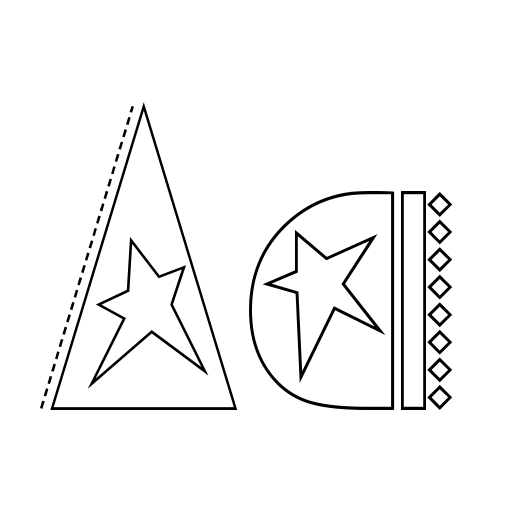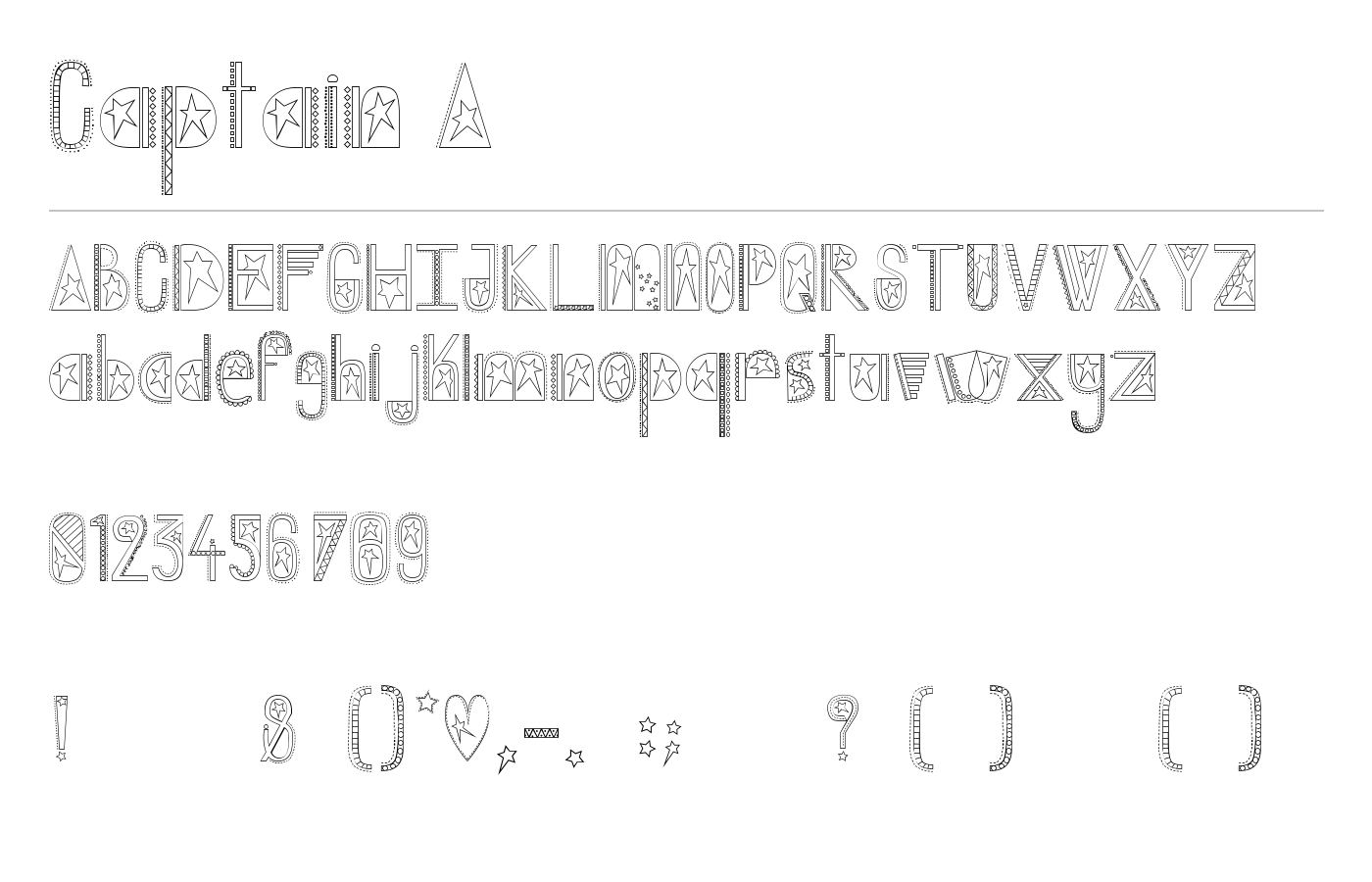
Captain A is a playful, decorative sans serif font featuring geometric shapes and star motifs within its outlined letterforms. Its wide, airy design with intricate details and varied patterns gives it a lively, whimsical personality perfect for eye-catching headlines, posters, or branding with a fun, dynamic vibe. This font works best in creative projects that want to convey an adventurous, youthful feeling.
Captain A Font
About Captain A Font